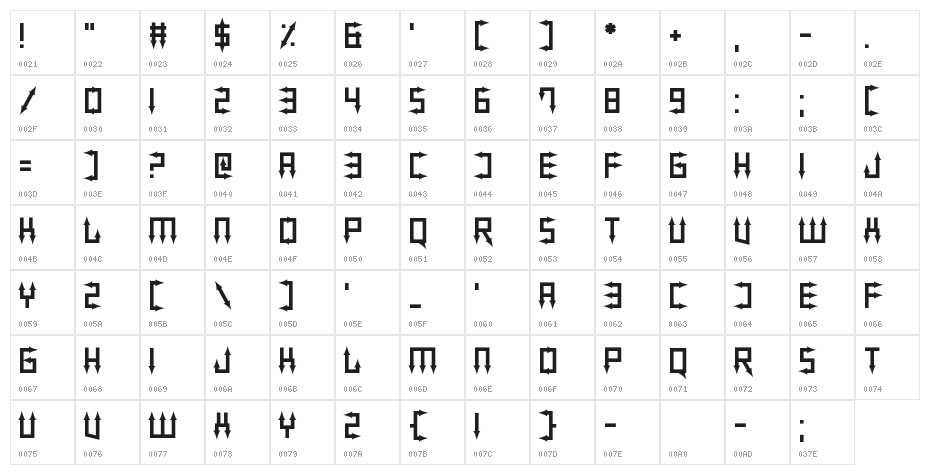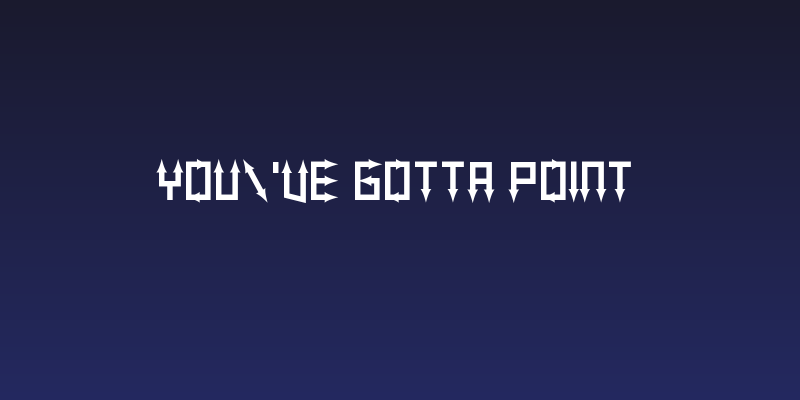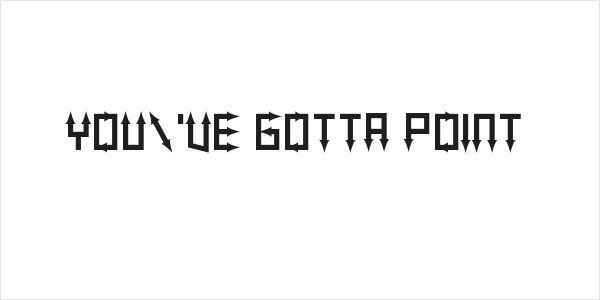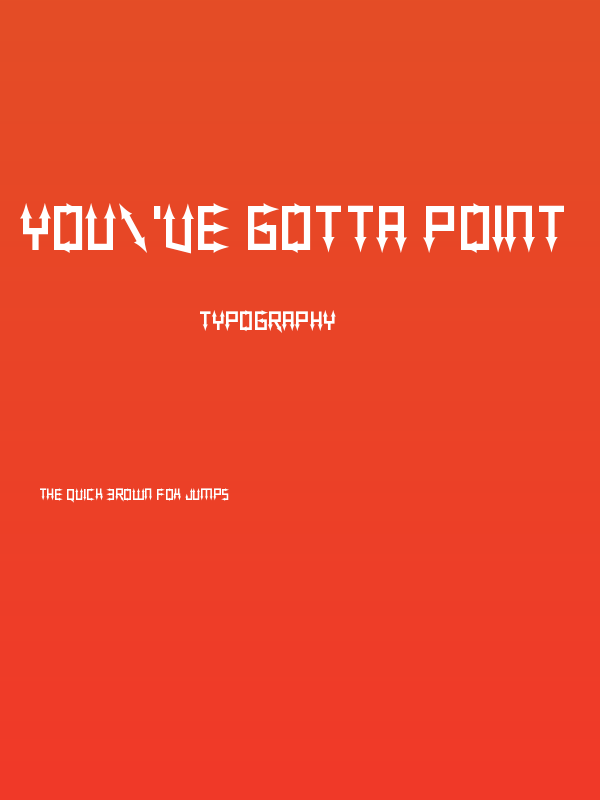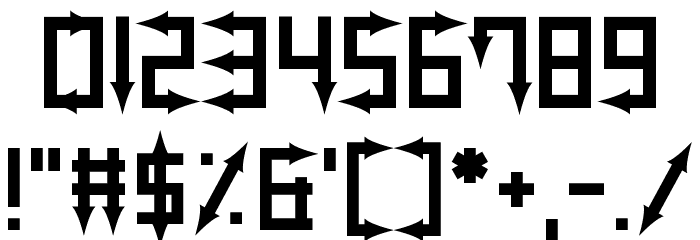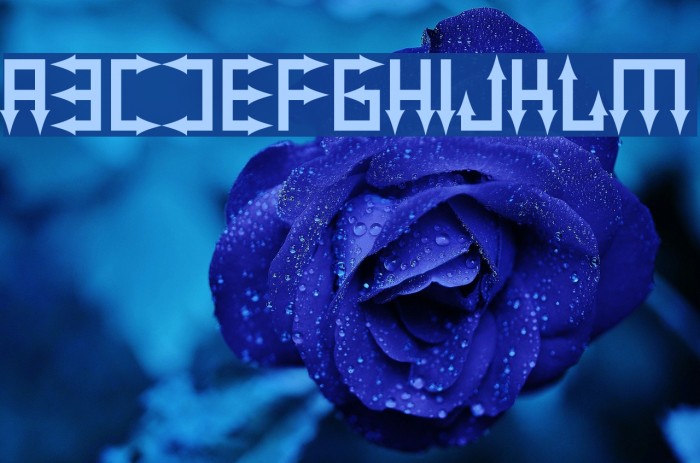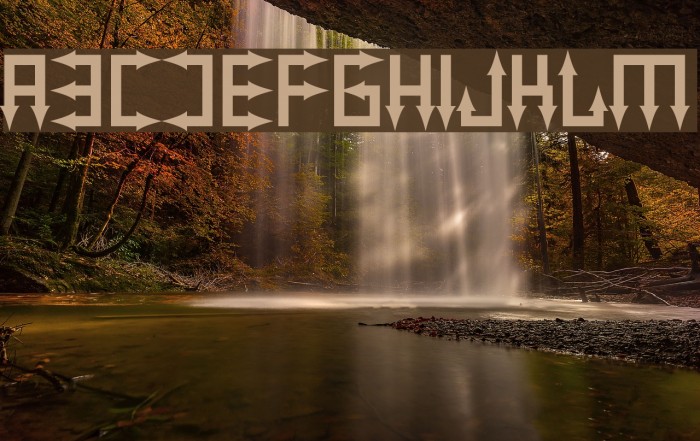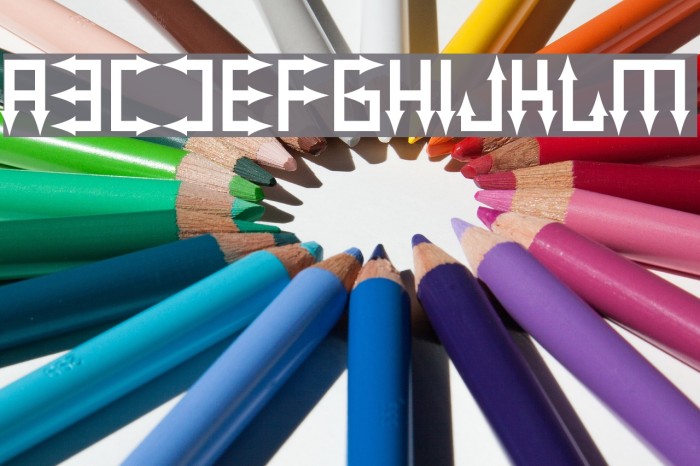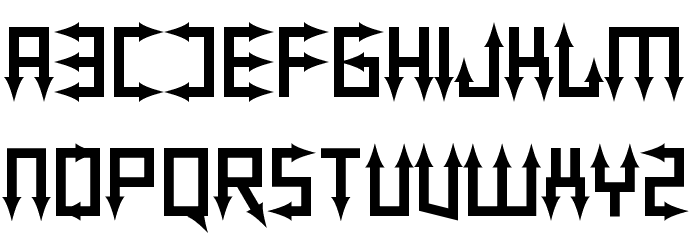
You've Gotta Point Font
You've Gotta Point Description
This font features a bold, geometric design with arrow-like extensions on each character, giving it a dynamic and directional appearance. The characters are constructed with straight lines and sharp angles, creating a sense of movement and energy. The uppercase letters are uniform in height, while the lowercase letters maintain the same angular style. Numbers and special characters are similarly styled, ensuring consistency across the font. The unique arrow motifs make it stand out, ideal for projects that require a strong visual impact.
| Proposed Projects | Ideal for branding, posters, and any design needing a bold, directional aesthetic. |